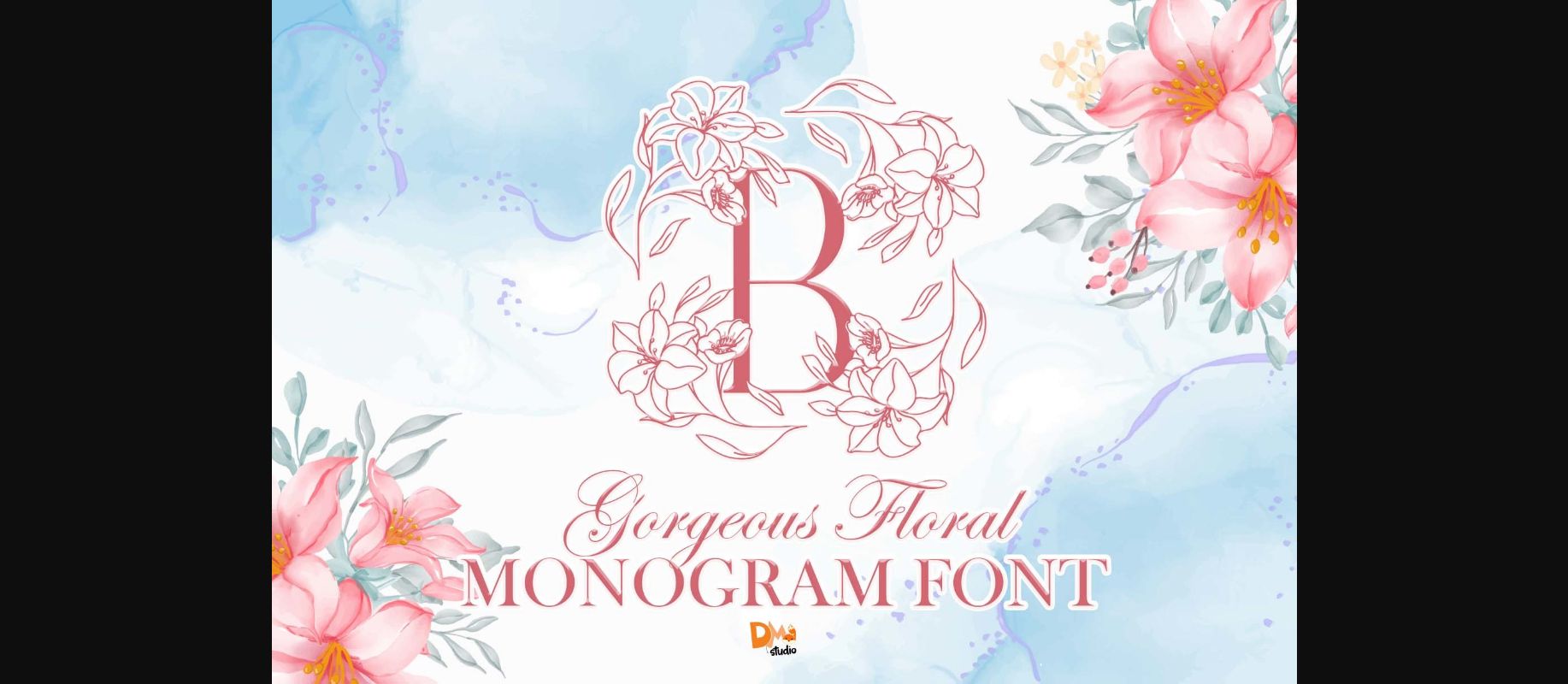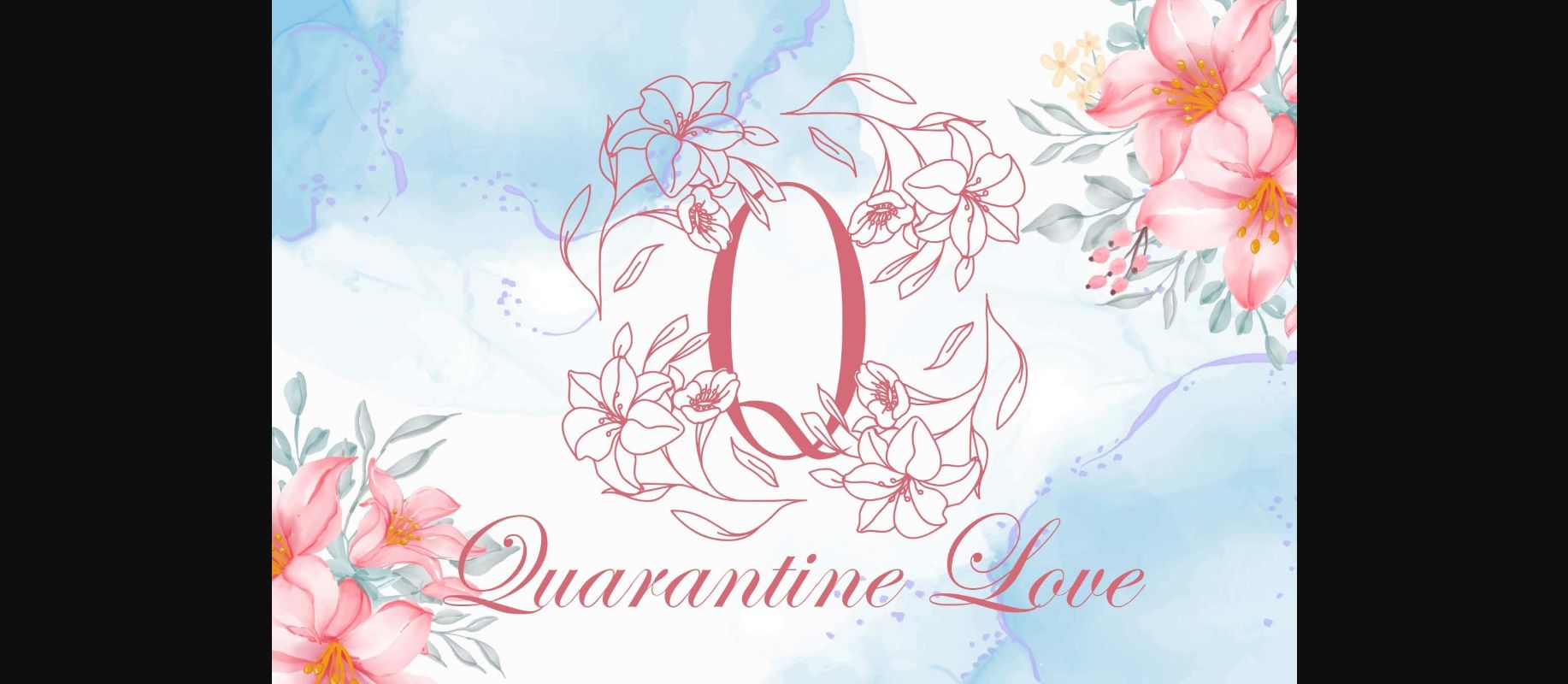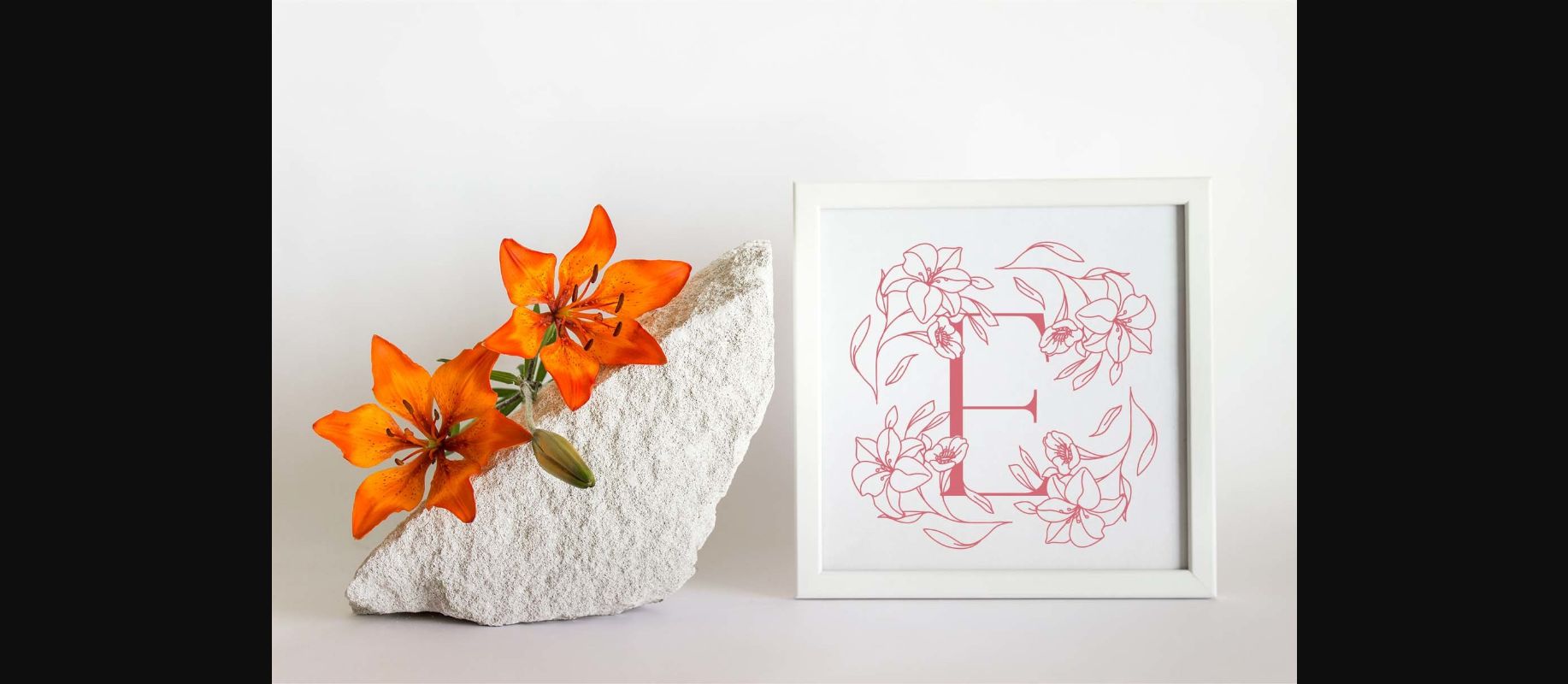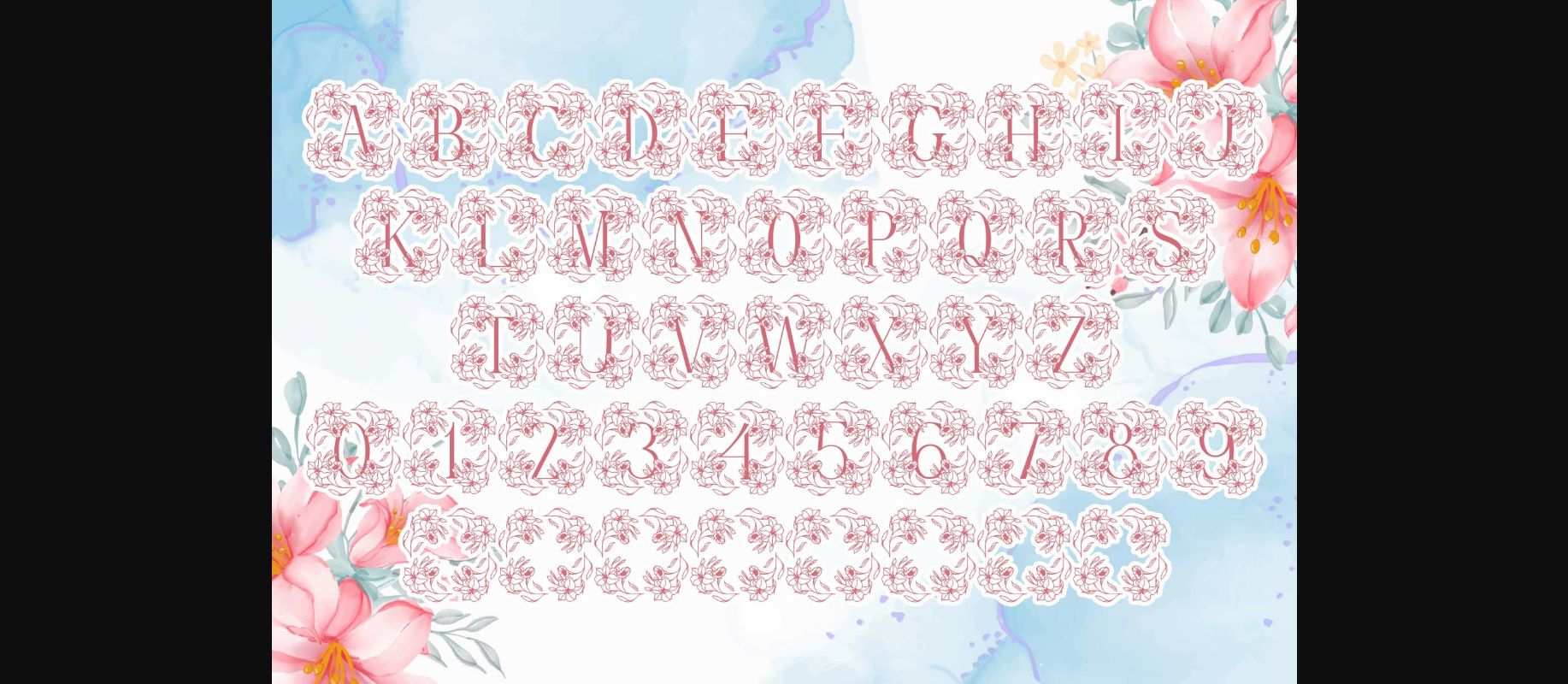
About Gorgeous Floral Monogram Font
Gorgeous Floral Monogram is a lovely, elegant and unique decorative font. Fall for its ravishing style and use it to create gorgeous wedding invitations, beautiful stationary art, eye-catching social media posts, and much more!